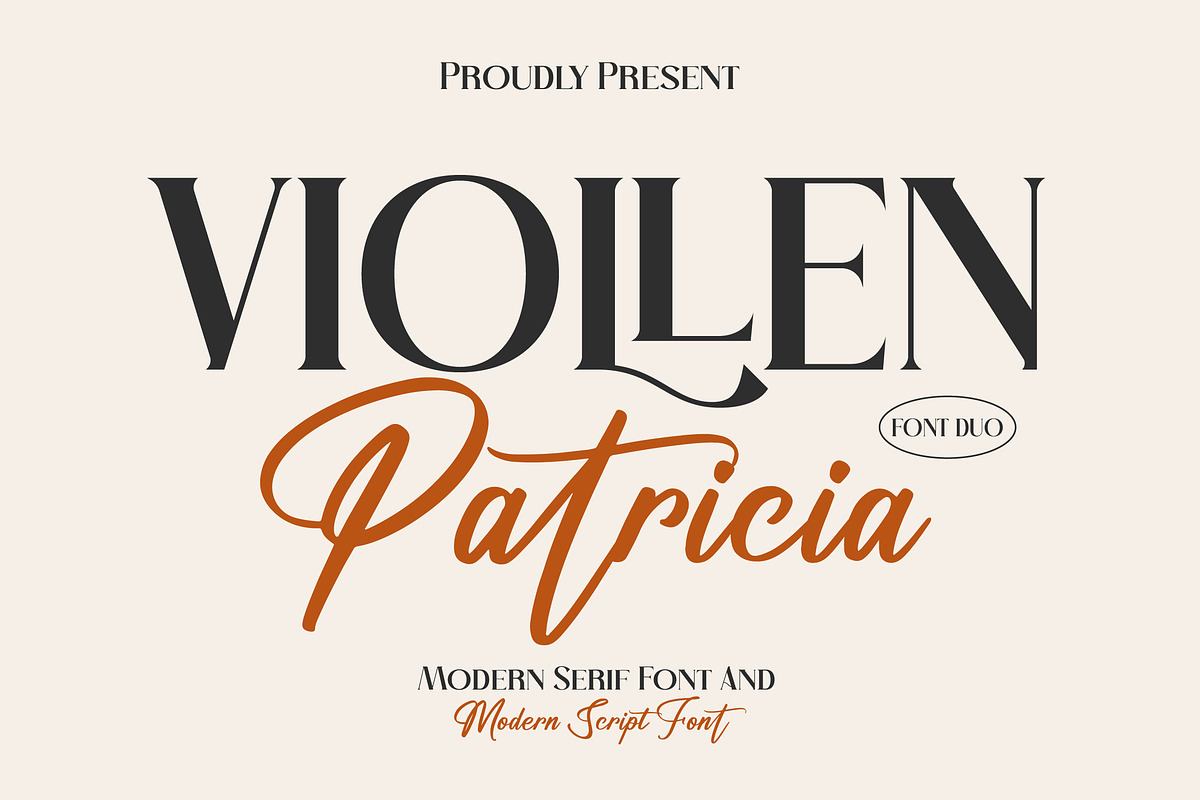
VIOLLEN Patricia Typeface Font Duo Free Download
VIOLLEN Patricia Typeface Font Duo Free Download is a sophisticated pairing of an elegant serif and a graceful script, designed to work harmoniously together in upscale design projects. Ideal for wedding invitations, luxury branding, beauty product packaging, and editorial layouts, this font duo brings a refined and romantic touch to your work.
The serif font delivers structure and classic charm, while the handwritten script adds softness and personality—making this combo perfect for creating visual contrast and flow within your typography. Each style complements the other, allowing for stunning headlines and balanced subtext.